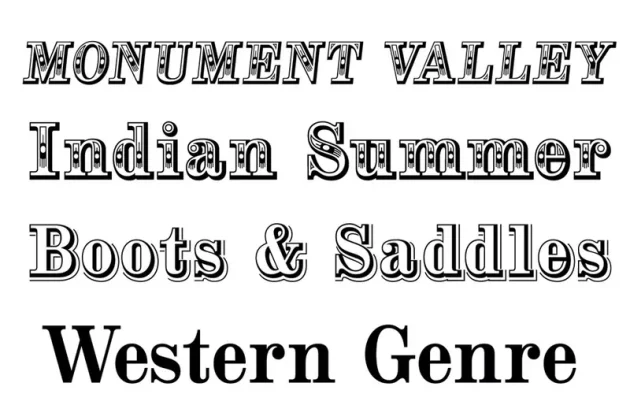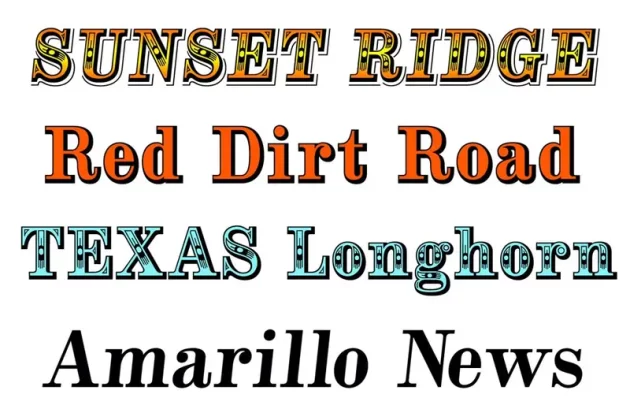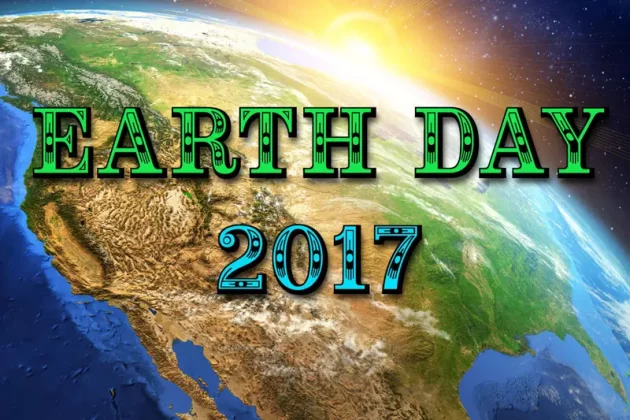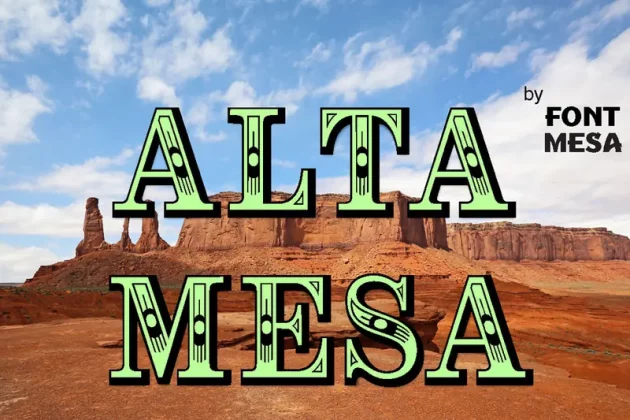
Alta Mesa Font
About Alta Mesa Font
Alta Mesa is a revival of an old type design from the 1800’s that was sold by most of the type foundries in the US and Europe of that time period so it is difficult to know the foundry of origin.
New with this version are the fill fonts and plain styles, the fill fonts may be used as stand alone fonts, however the letter spacing is much wider, the plain versions are recommended if you desire a solid black weight.
The regular Fill font is in registration with the Regular and Open versions while the Fill L font is in registration with the L and Open L versions.
This was a very charming font in its time and was heavily used on old billheads and letterheads.
We’re pleased to bring this type design, which hasn’t been used for over 100 years, into the digital world today.